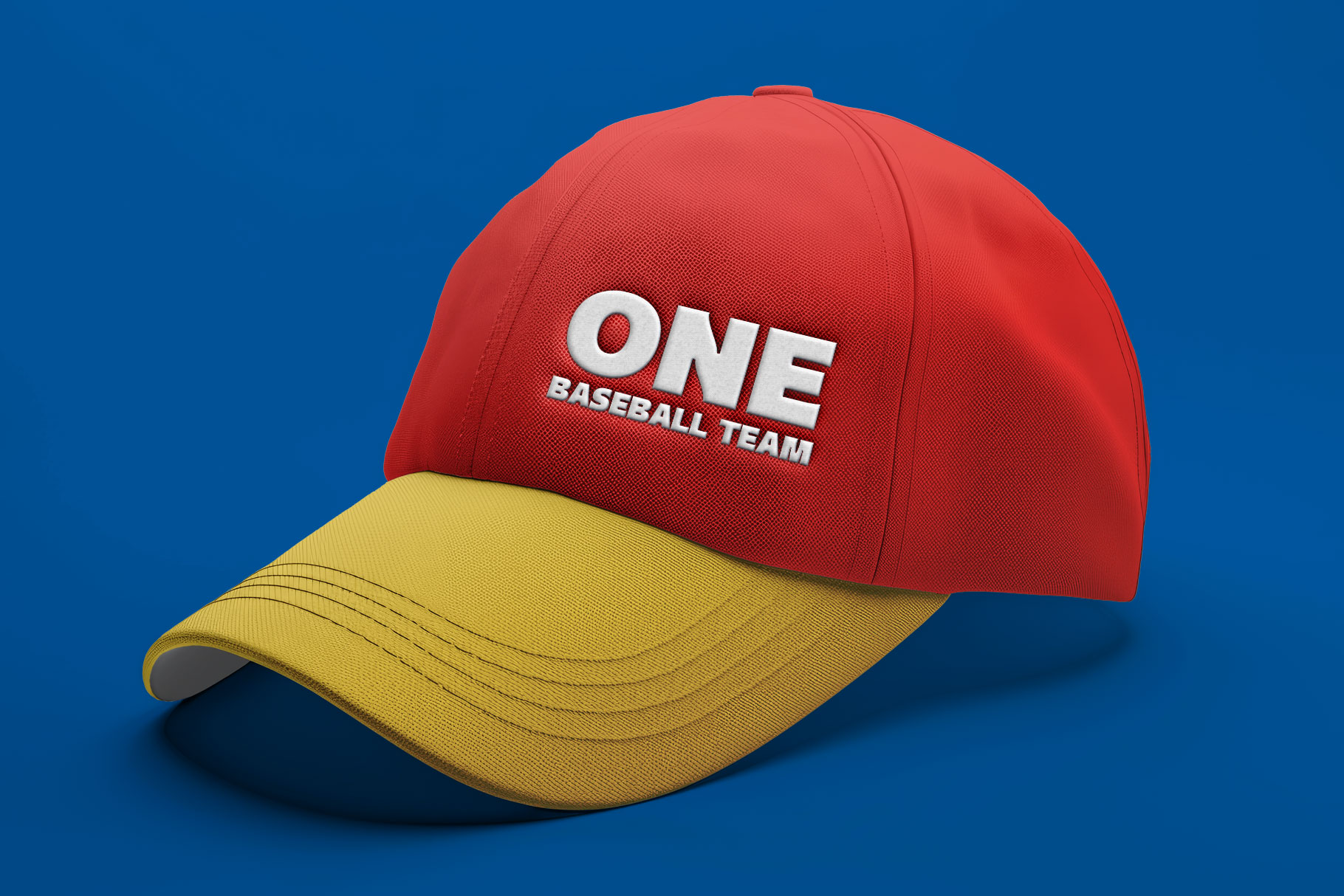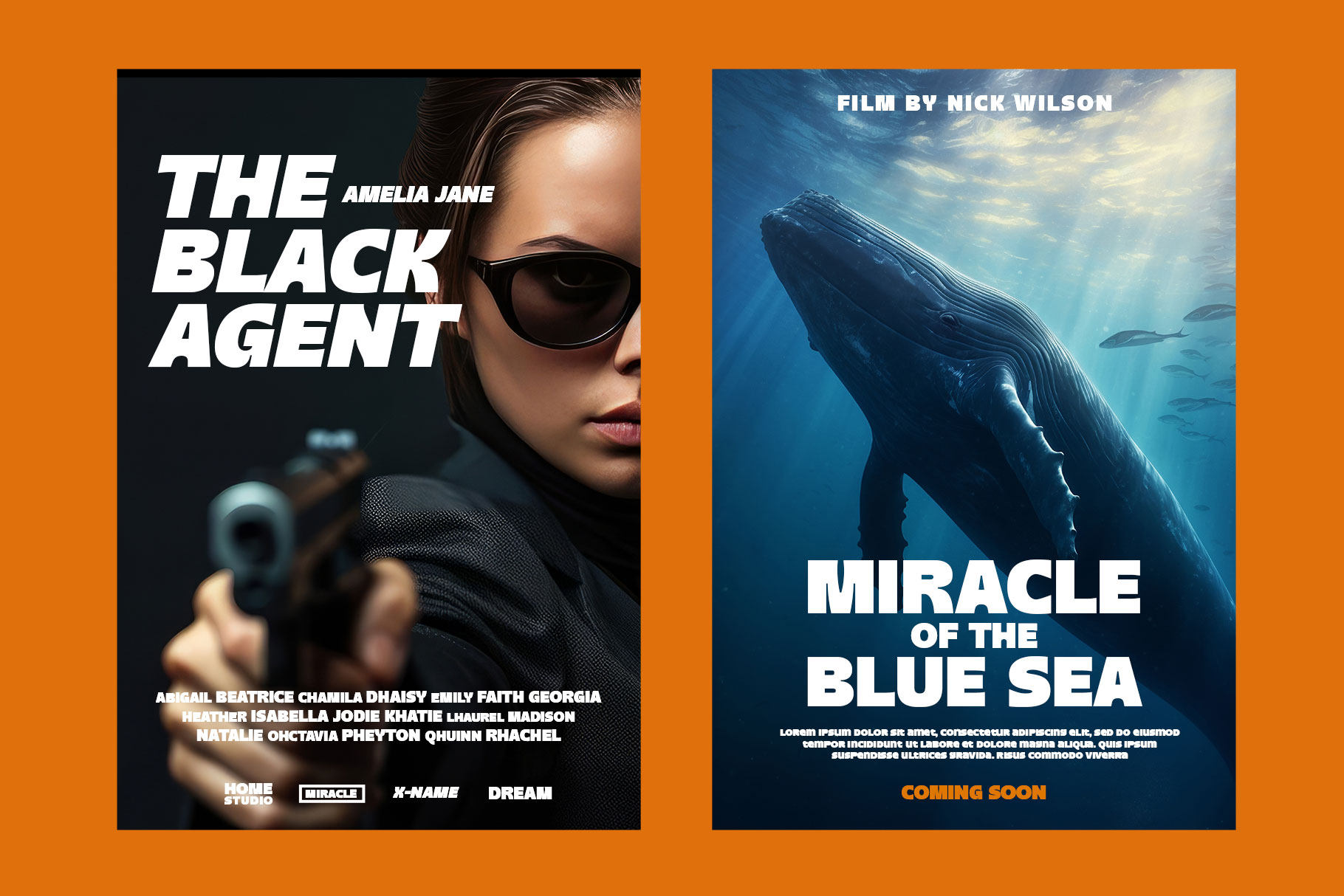
Pageson Bold Condensed Font
Pageson is bold condensed font with solid and strong impression. Pageson come with impression of strength it useful for your a cool and awesome project up next.
Pageson is a perfectly choice for any creative endeavor, chic, lifestyle design such as logotype, advertisements, watermark on photography, stationery, branding project, display and magazine, invitation, poster, corporate brand, product design, label, business project and many other project with fun or a formal kind touch.